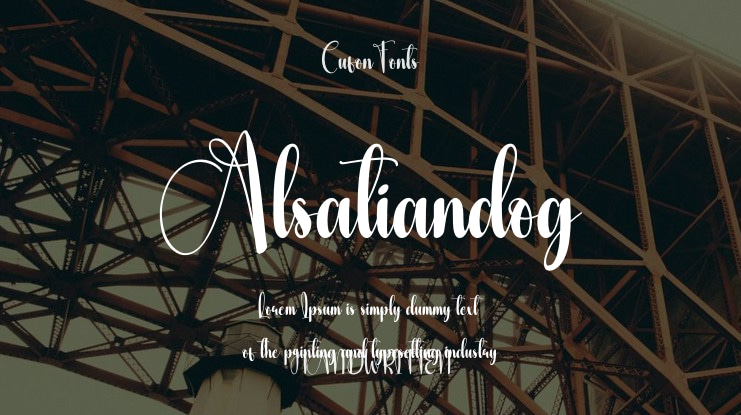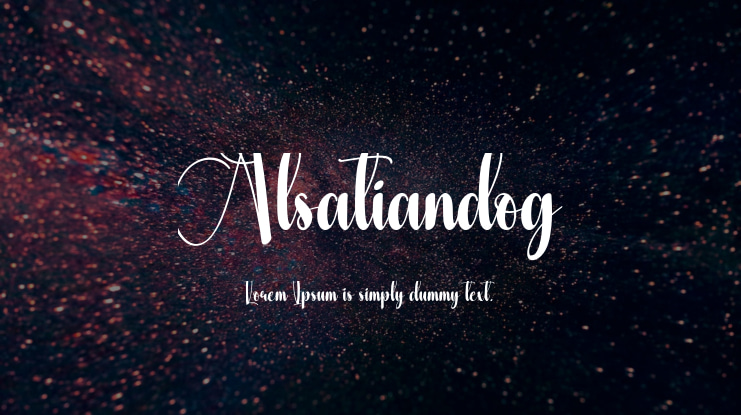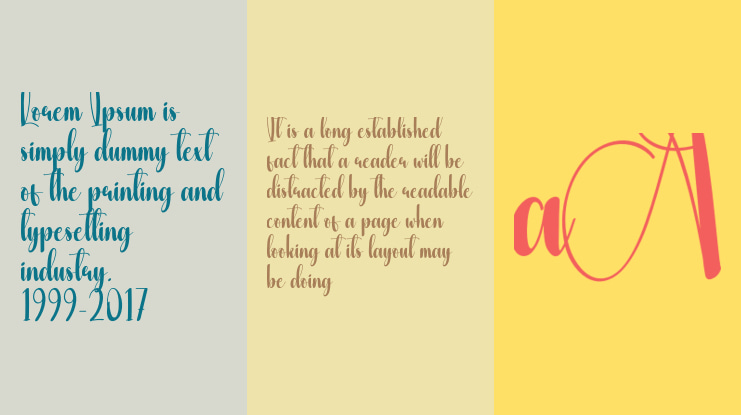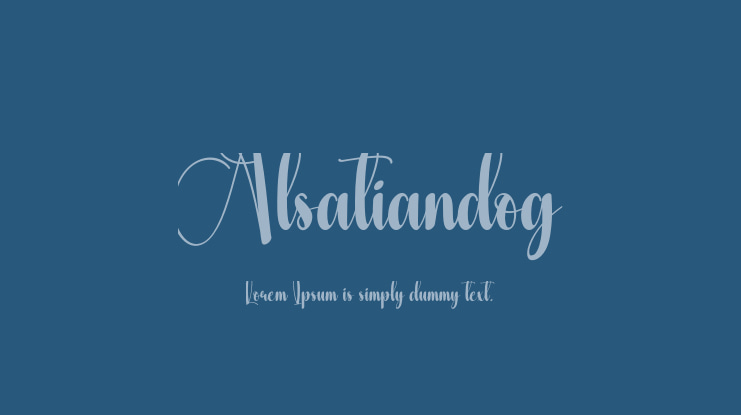
Alsatiandog Font
The latest stylish fonts are ideal for wall displays, wedding invitations, social media posts, logos, advertisements, product packaging, designs, labels, photography, watermarks, stationery, and any project requiring elegant handwriting aesthetics.